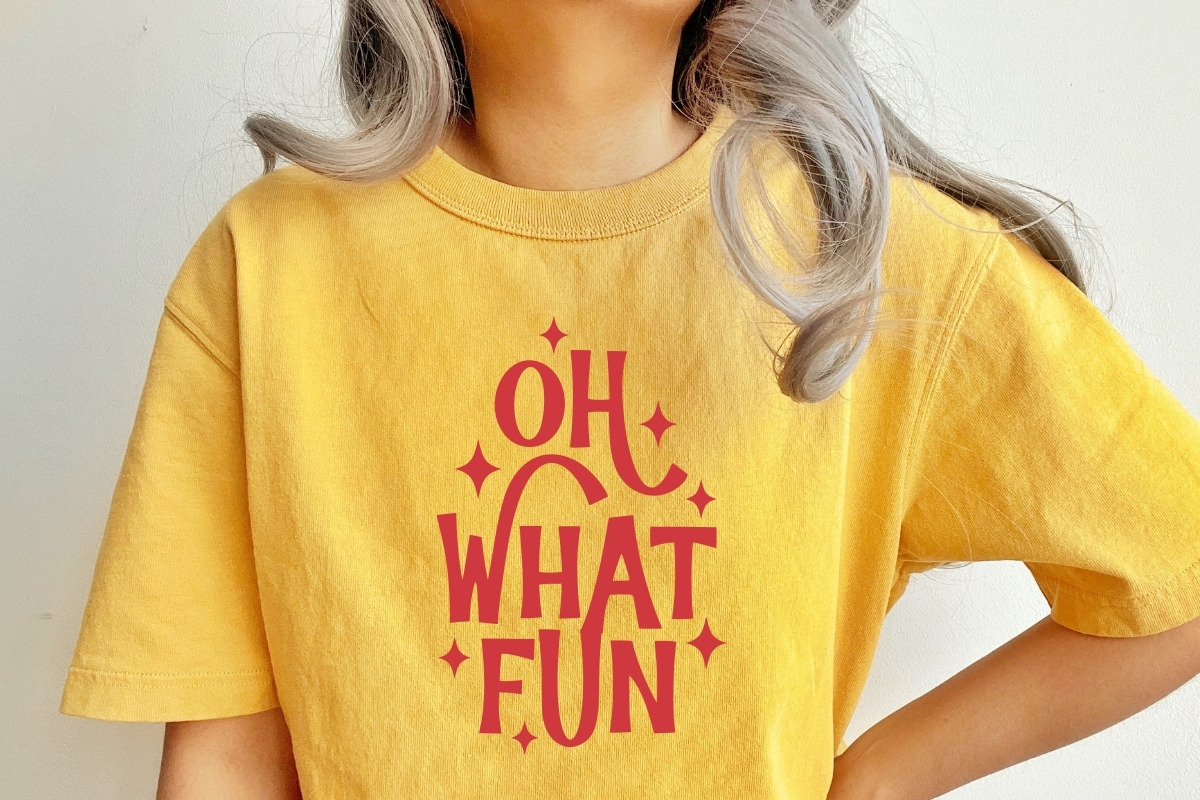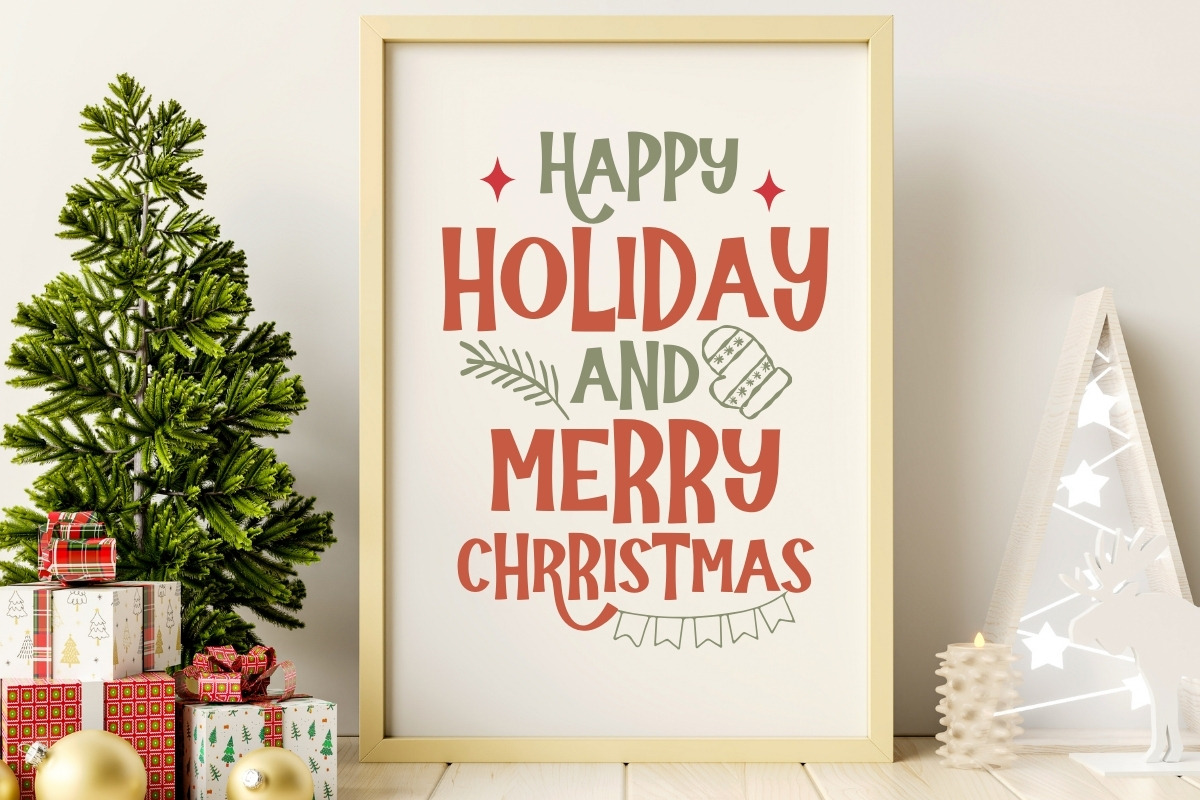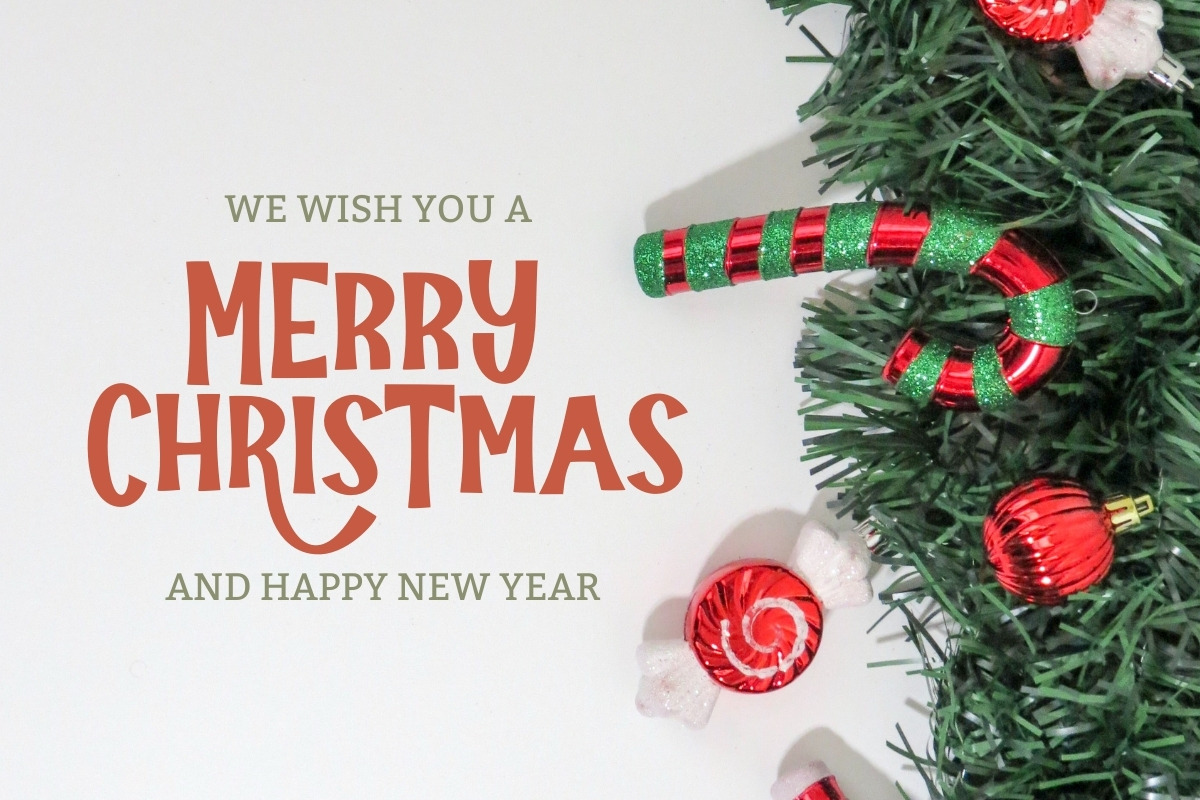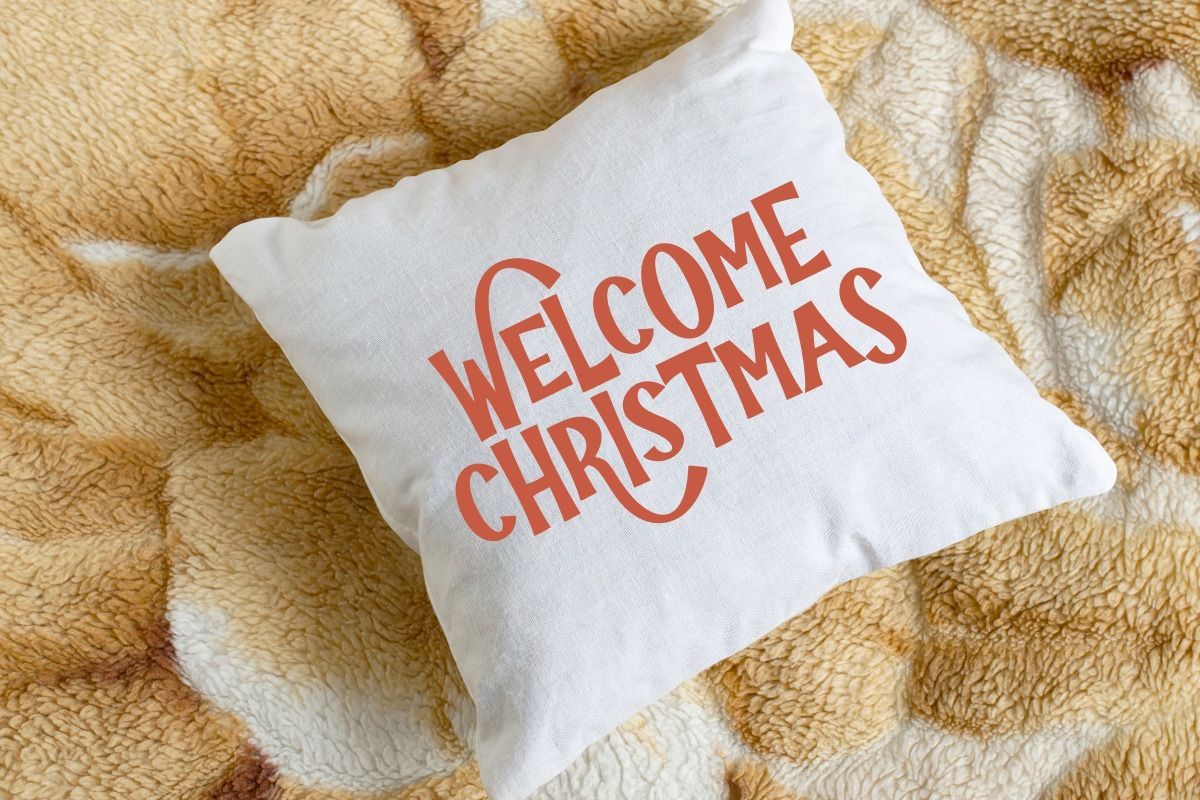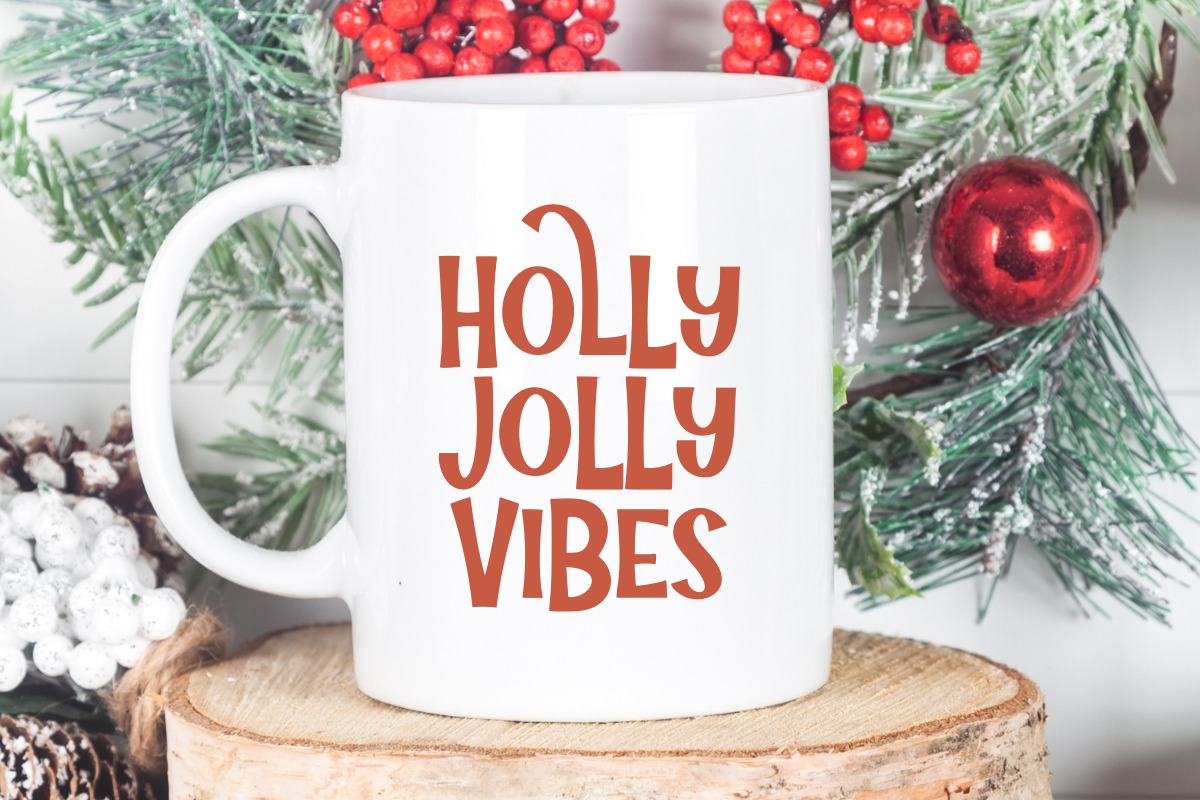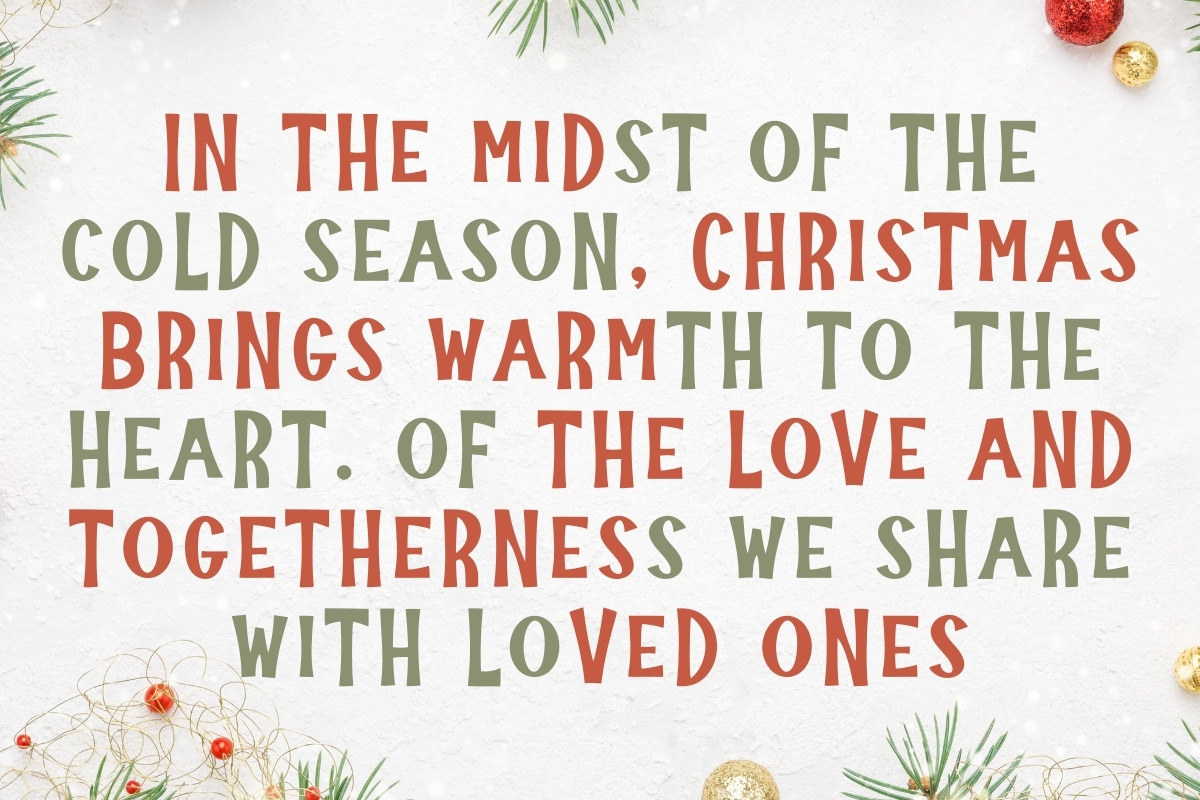
Twinkle Christmas - Handwritten Mix
Twinkle Christmas is a whimsical and handwritten mix font designed to capture the magical and sparkling essence of the holiday season. This playful display typeface features a unique blend of casual letterforms and a charming hand-drawn feel, making it an ideal choice for Christmas branding, festive greeting cards, winter stickers, and joyful social media graphics. Its organic, bouncy rhythm ensures your headlines stand out with a cozy, handcrafted touch. Whether you are designing for holiday apparel, gift tags, or seasonal posters, Twinkle Christmas adds a sprinkle of festive wonder to every creative project.